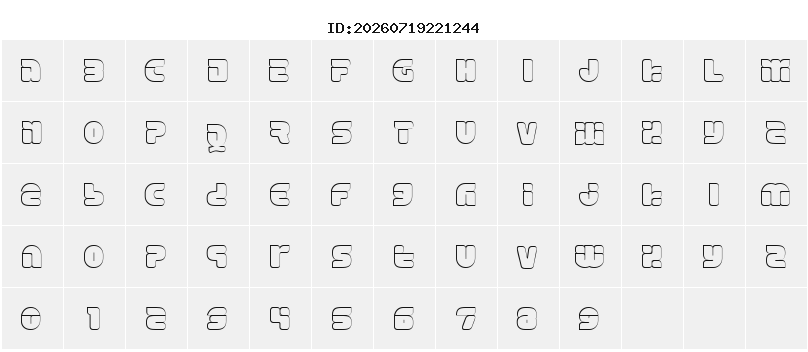
• Font Name: Eraser
• Full Font Name: EraserShade
About Eraser.ttf
Eraser.ttf is a modern, elegant sans-serif font designed for ultimate readability and visual harmony. Perfect for branding, headlines, web design, and print materials.